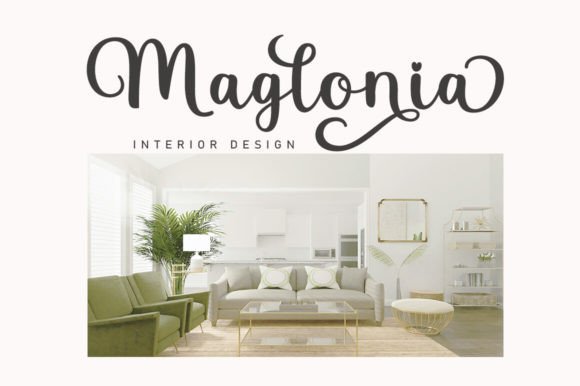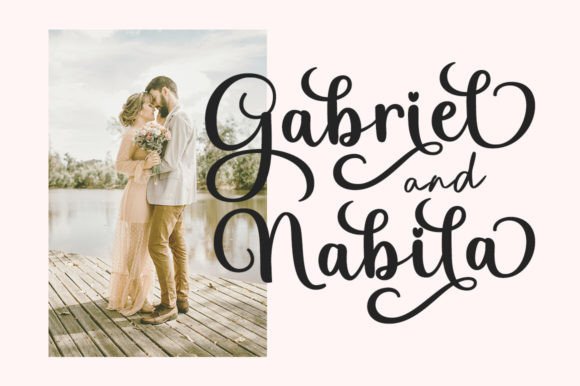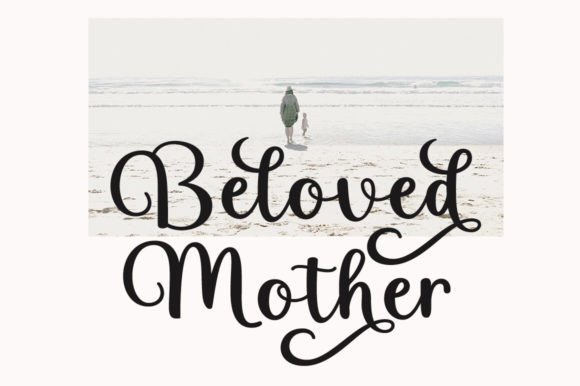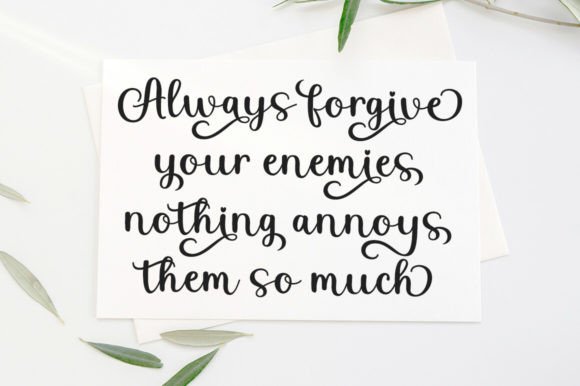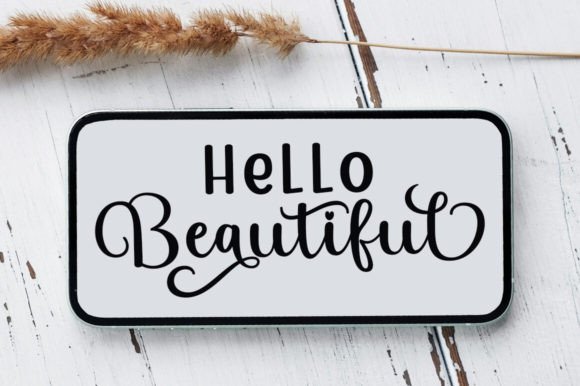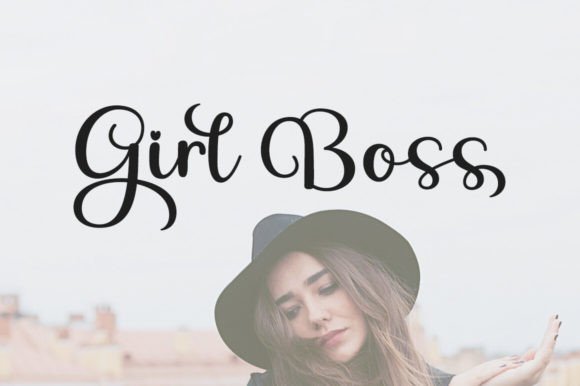
Introduction to Gelatin Font
Gelatin is a lovely handwritten font, modern and classy, which exudes elegance with a modern style.
Gelatin is written with care and love which makes it the perfect choice for a variety of design projects It will work perfectly on a variety of your design projects such as branding, logos, wedding invitations, greeting cards, fashion, book covers, posters, labels, quotes and other romantic projects.
Gelatin Font offers exceptional quality and versatility, making it a valuable addition to your design toolkit. Whether you’re creating for personal projects or commercial use, Gelatin Font delivers professional results.